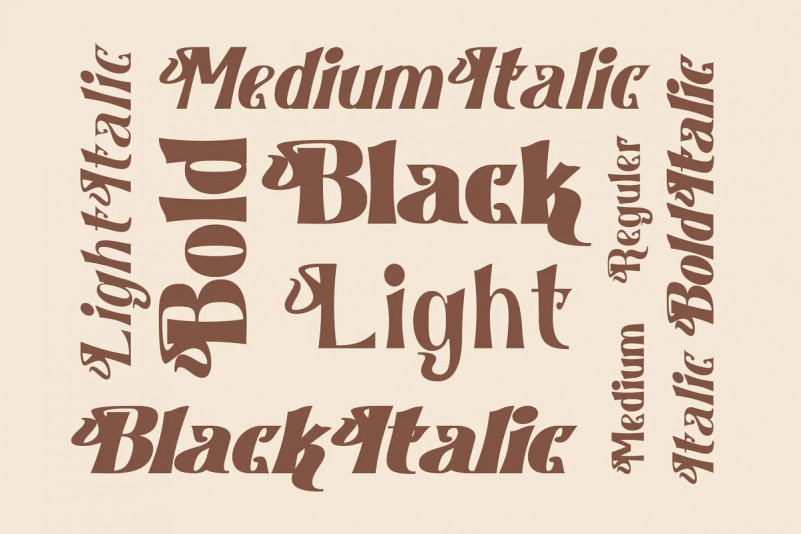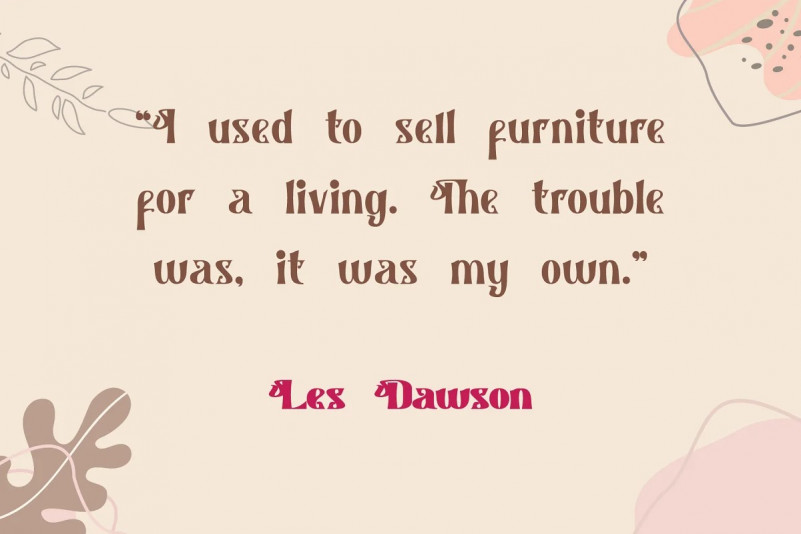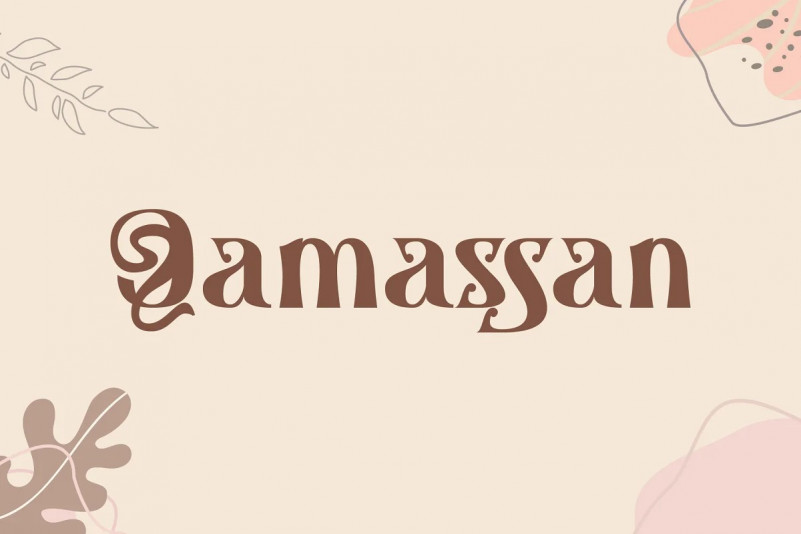
Qamassan Font
QAMASSAN is a Bohemian Vintage Typeface. It’s retro, bold, and playful. Perfect if you need a dose of fun in your project. QAMASSAN fits perfectly into those nostalgic moodboards and vintage logos. It come with a unique lower and uppercase plus numbers, punctuation & multilingual letters.